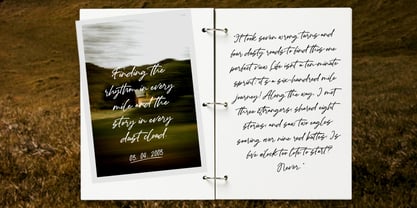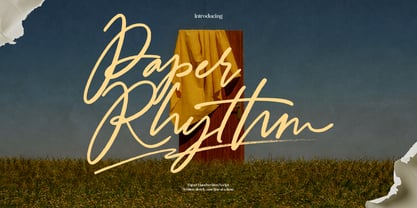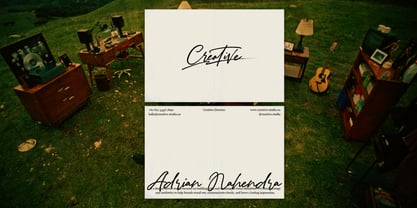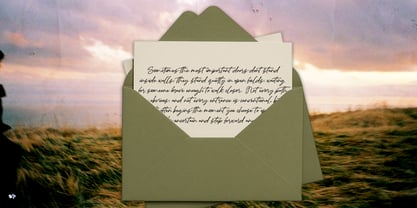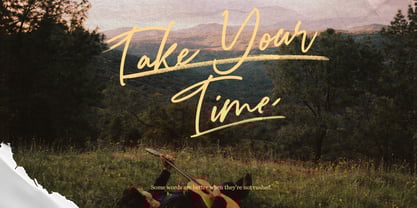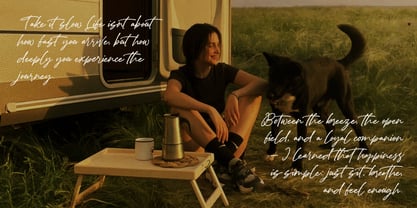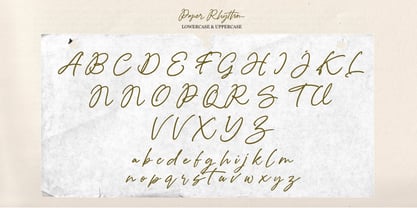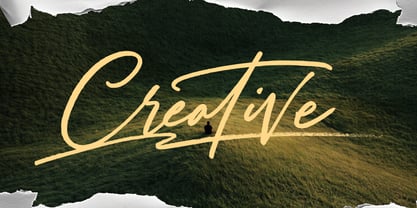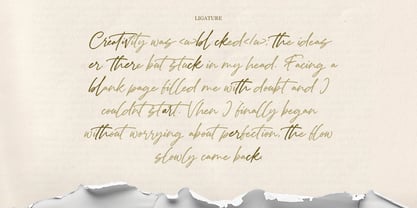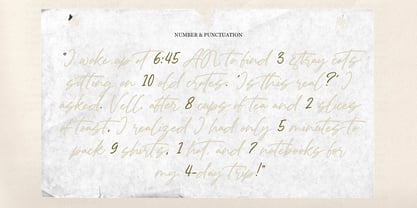
Paper Rhythm
by Inviline
The Paper Rhythm Font Family was designed by Virgiawan Listanto and published by Inviline. Paper Rhythm contains 1 styles. More about this family
Paper Rhythm is a beautifully crafted handwritten script font that embodies the warmth, honesty, and natural flow of authentic handwriting. This versatile font features both uppercase and lowercase letters, numbers, punctuation, and extensive multilingual support. With smooth ligatures and expressive alternates, it creates a seamless rhythm and genuine movement in every word. Ideal for a variety of applications, including branding, wedding invitations, editorial layouts, quotes, social media content, packaging, logo design, journaling projects, photography overlays, and creative storytelling, Paper Rhythm adds an emotional, elegant, and personal handwritten touch that enhances any project.
Designers: Virgiawan Listanto
Foundry: Inviline